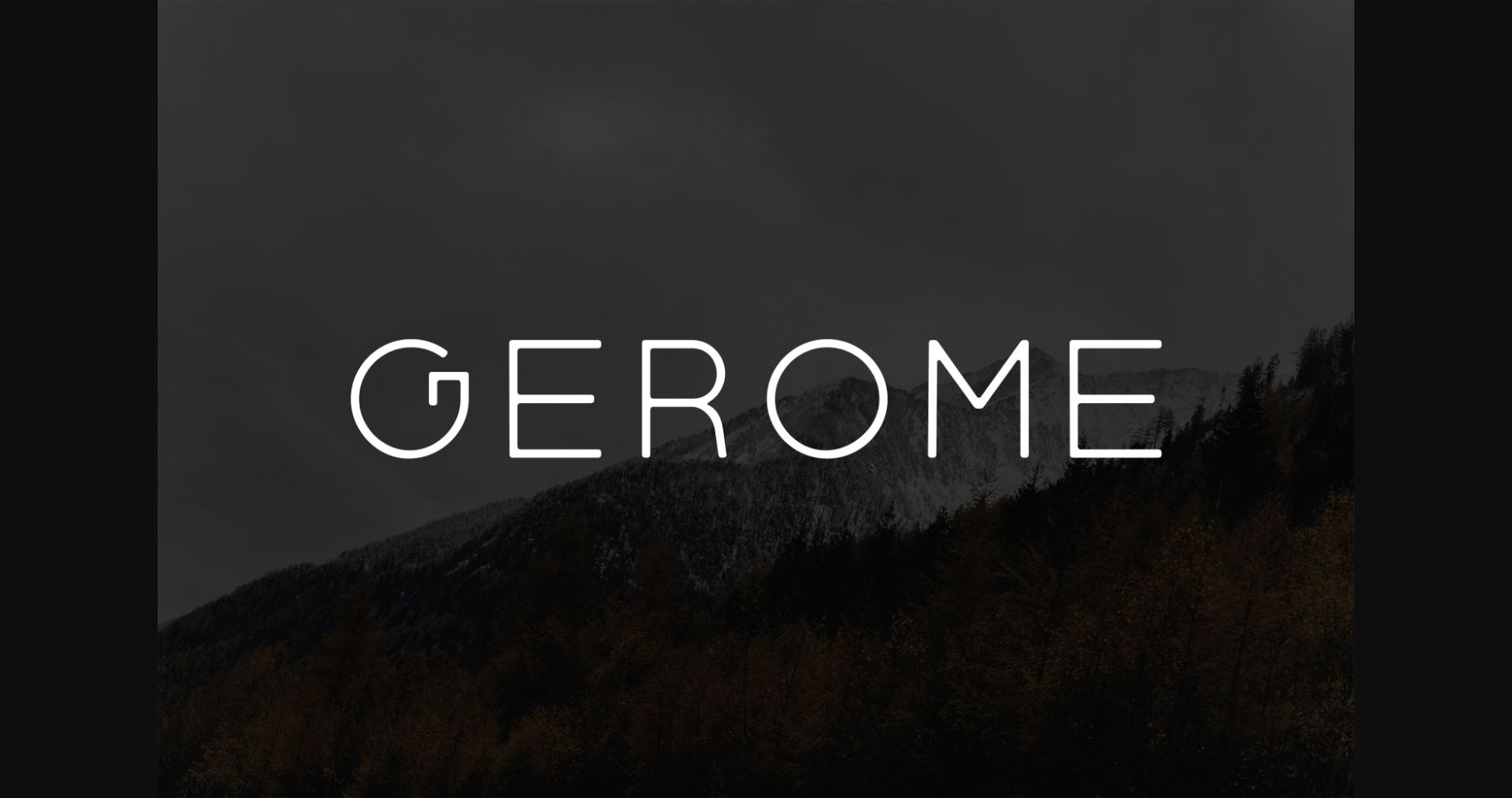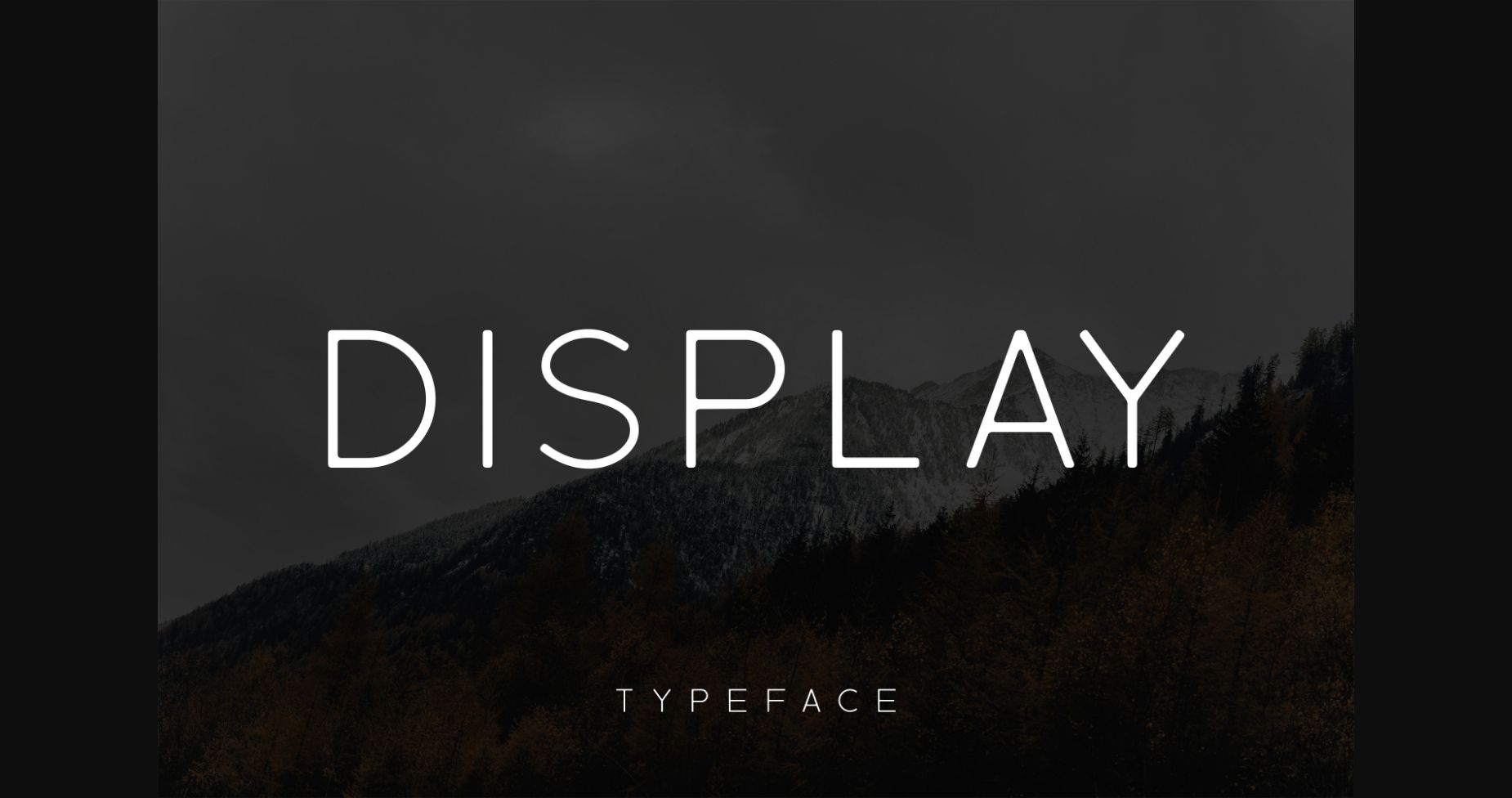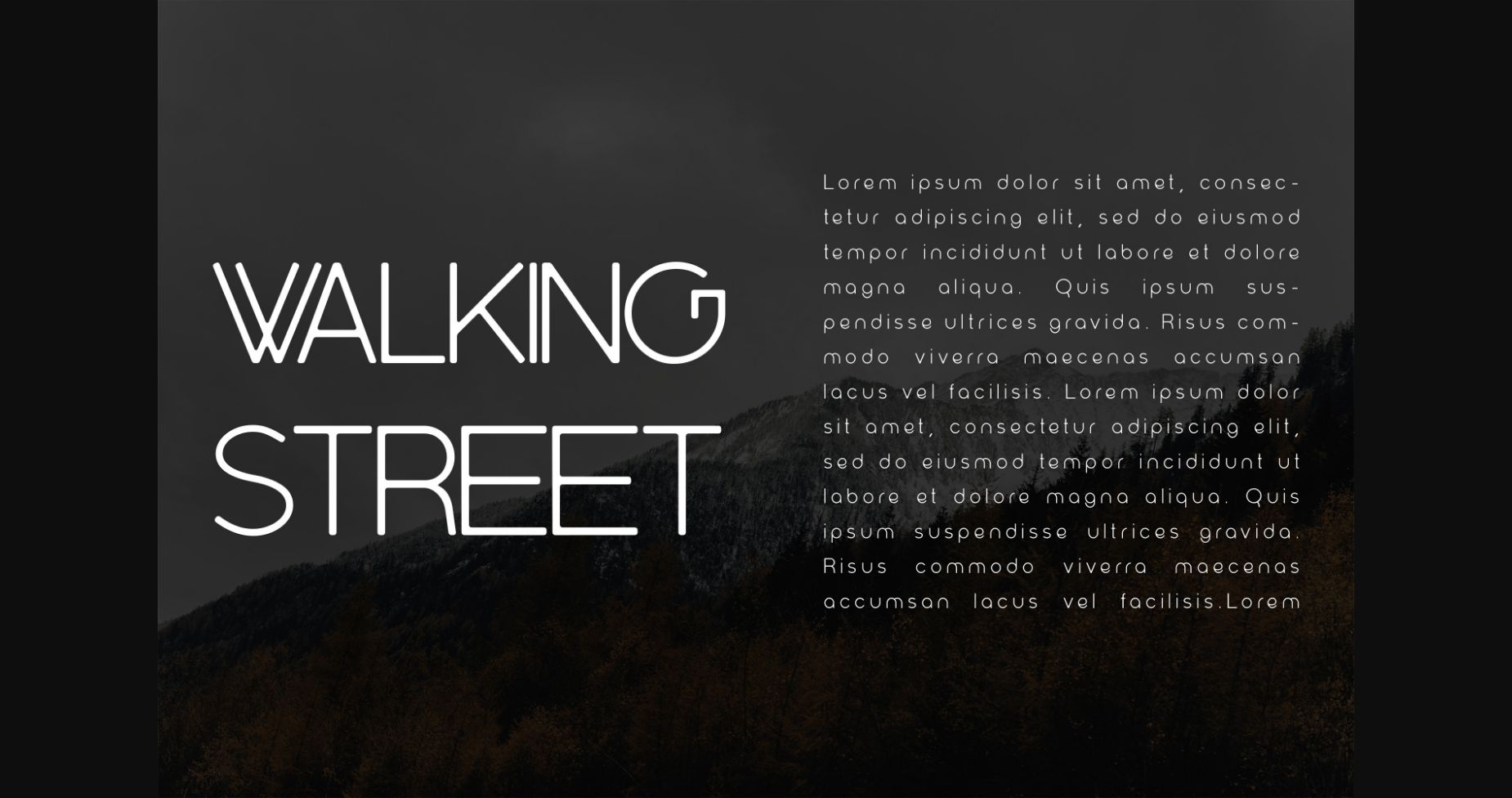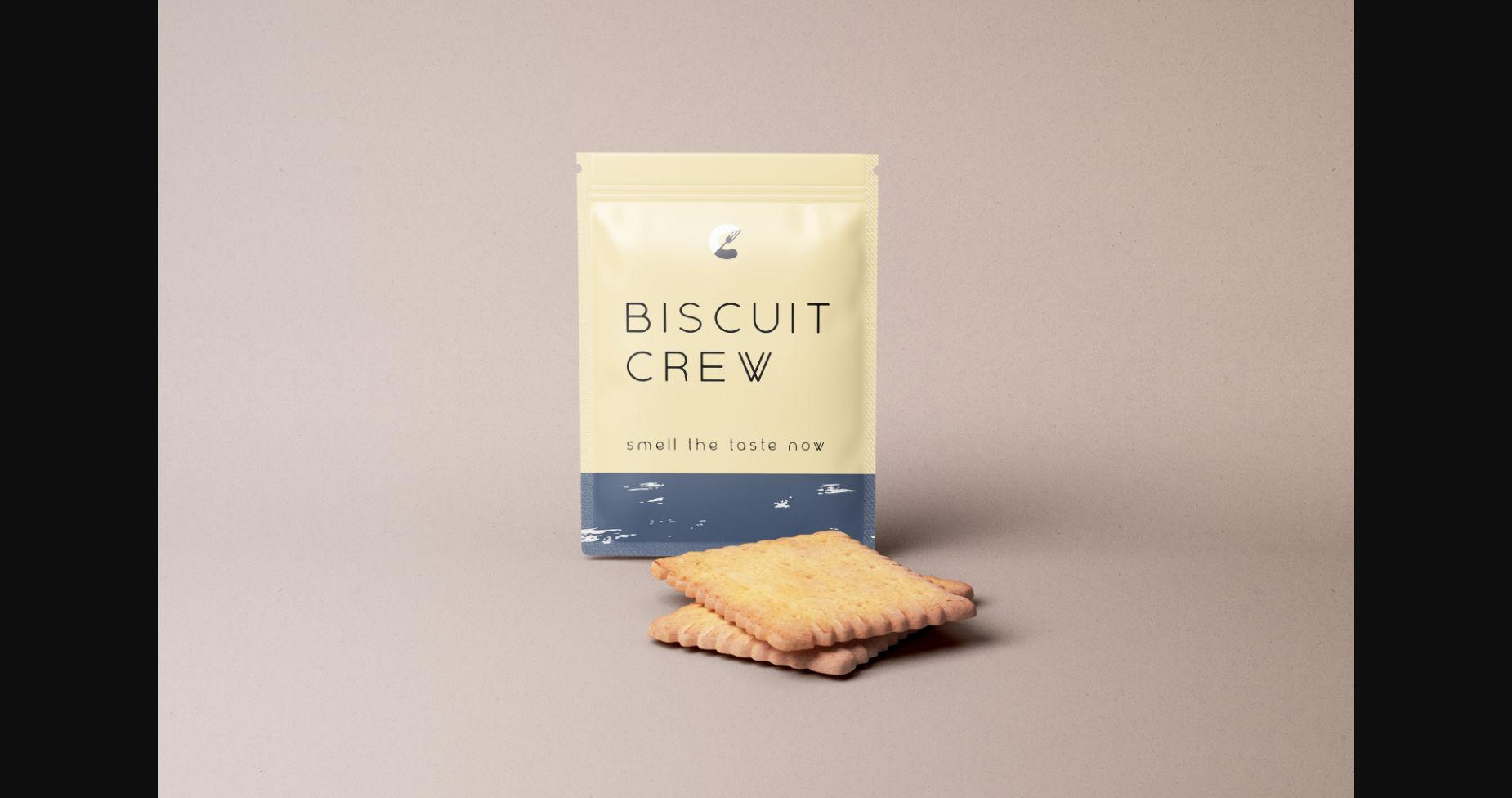
About Gerome Font
Gerome is a unique and modern sans serif font, perfect for headlines, big text, branding, logotypes & display usage. This font is the perfect choice for outstanding logos, promotional content, and marketing graphics that can bring uniqueness and freshness at its level best.
The typeface will be perfect for creating unique monograms, logos, and brand identities.